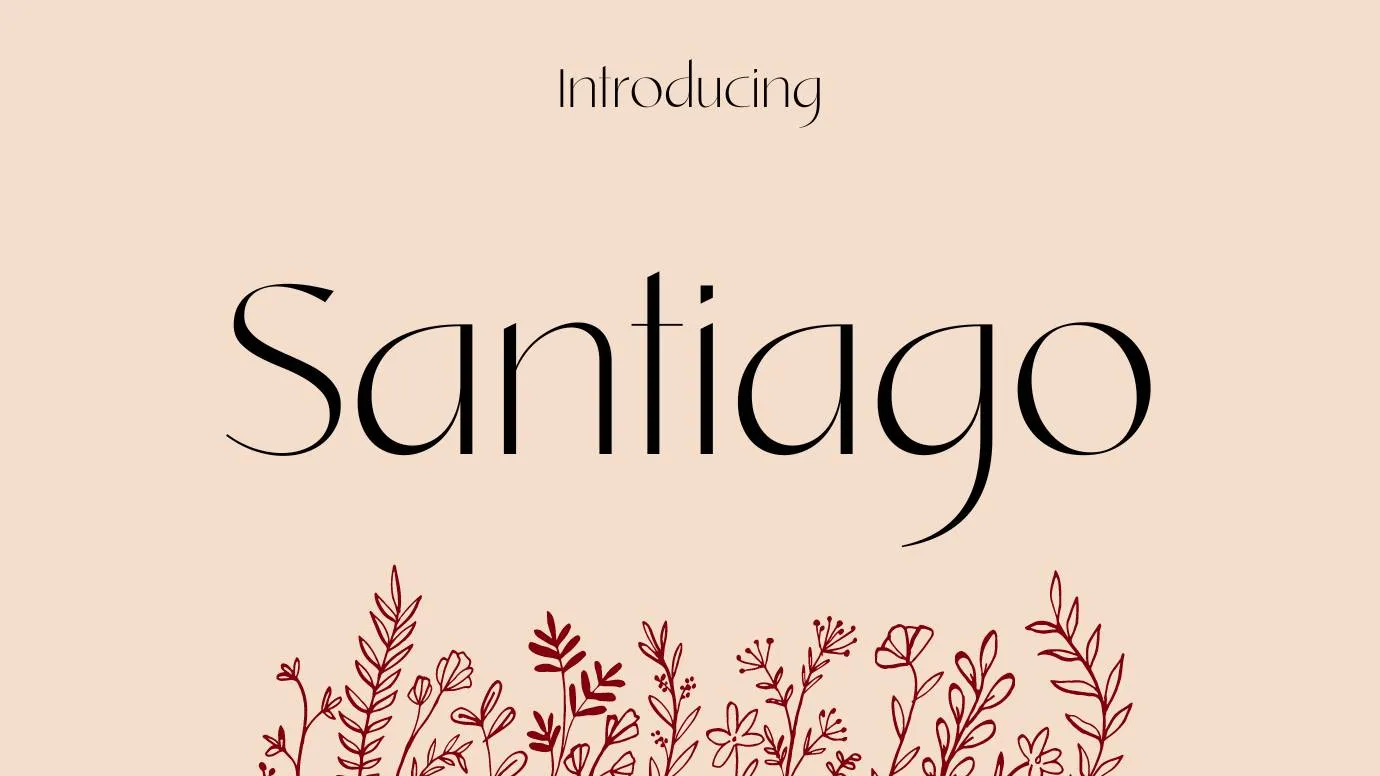
Santiago Font Family is a stunning typeface that was finally developed by Igor Ovsyannykov with stylistic alternates. And it was released for the first time by Hipfonts. This texture comes with WOFF, OTF, and TTF formats in its free versions.
It comes with more than 120 characters along with 2048 units per em. This awesome typeface contains a total of o3 classic and advanced styles. This fantastic texture has unique swashes along with stylish ligatures.
Santiago Font